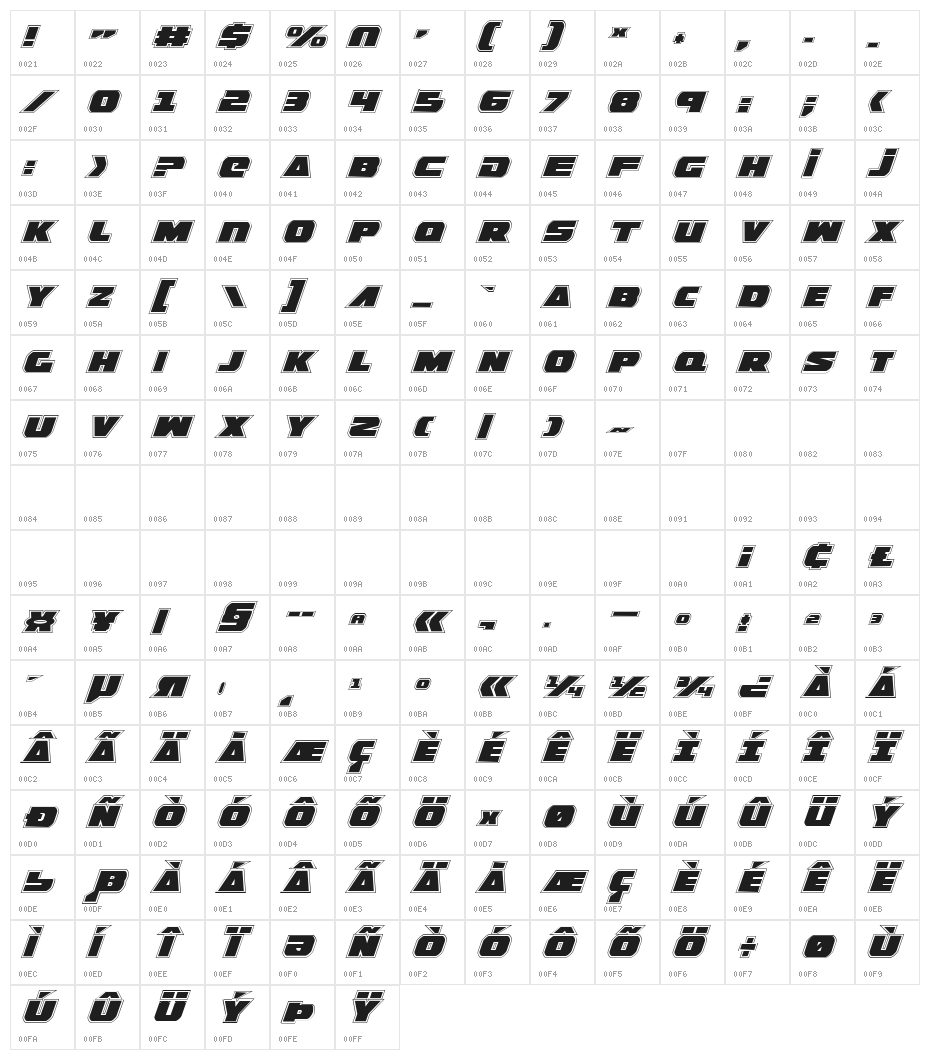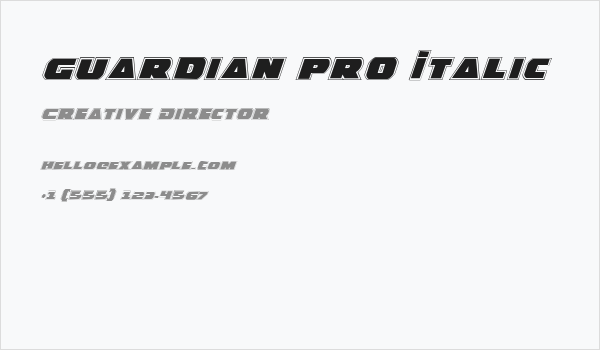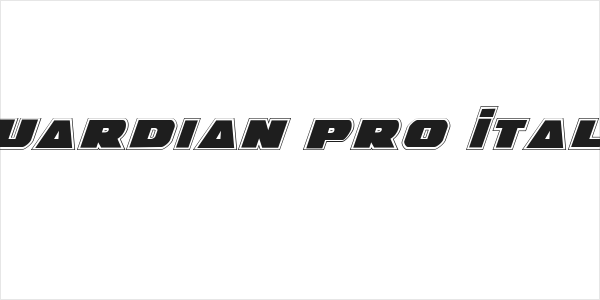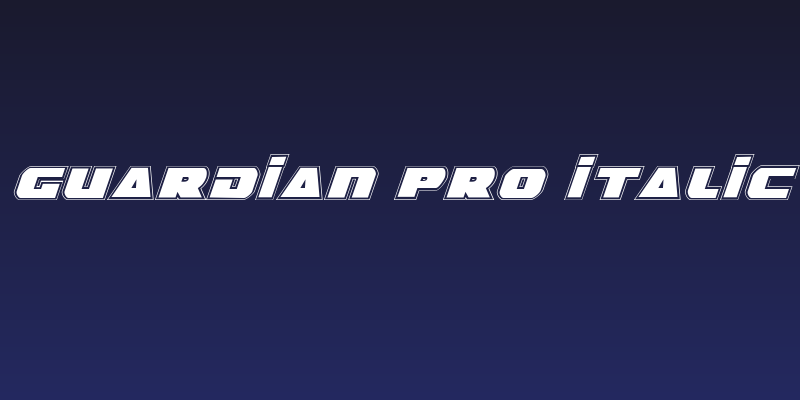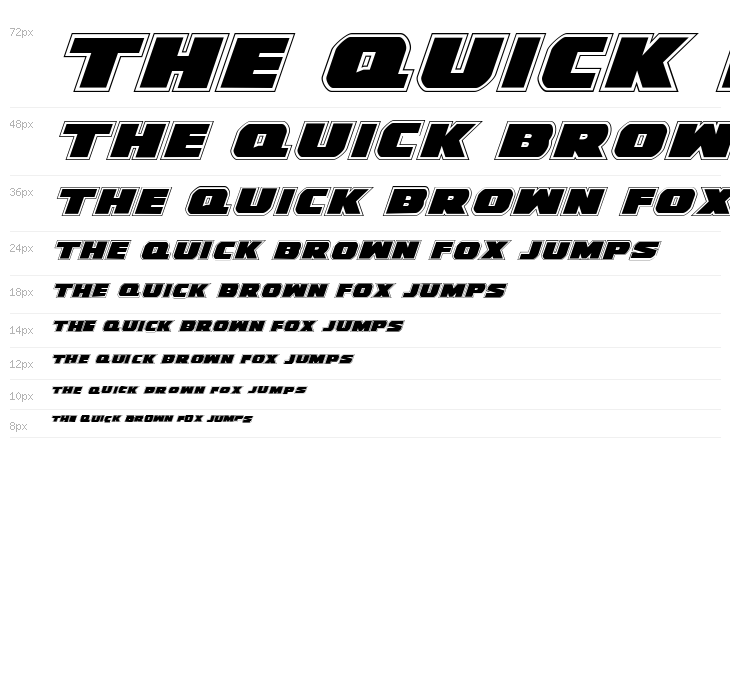
Guardian Pro Italic Font
Guardian Pro Italic Description
This font exhibits a bold, dynamic style with a strong geometric influence. The characters are italicized, adding a sense of motion and urgency. Each letter is outlined, creating a striking contrast between the inner and outer edges. The font's angular design and sharp edges give it a futuristic and modern appearance, making it ideal for attention-grabbing headlines. The numbers and special characters maintain the same bold and angular aesthetic, ensuring consistency across all text elements. The overall design is both powerful and sleek, suitable for projects that require a strong visual impact.
| Proposed Projects | Ideal for sports branding, tech-related advertisements, video game titles, and dynamic poster designs. |